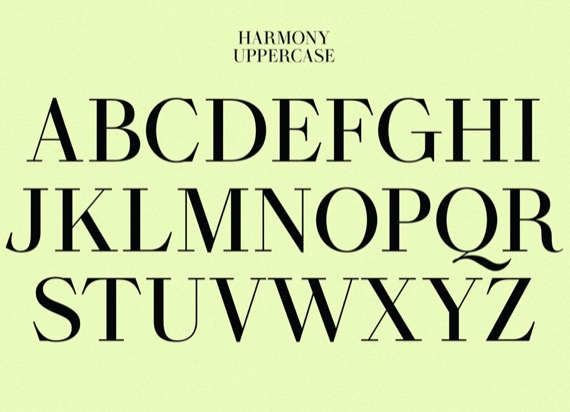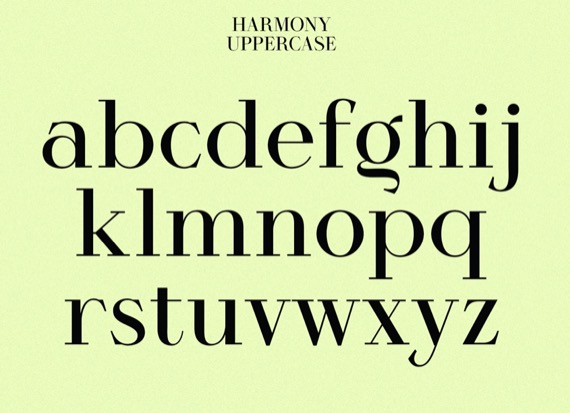
Harmony Font was created by Nevsky Type and is a new modern serif typeface that will be perfect for many project: invitations, postcard, poster, book, advertisements, websites, blog header, logo, branding, magazines, fashion, photography, etc.
Harmony Serif Font
Designer, Publisher: Nevsky Type